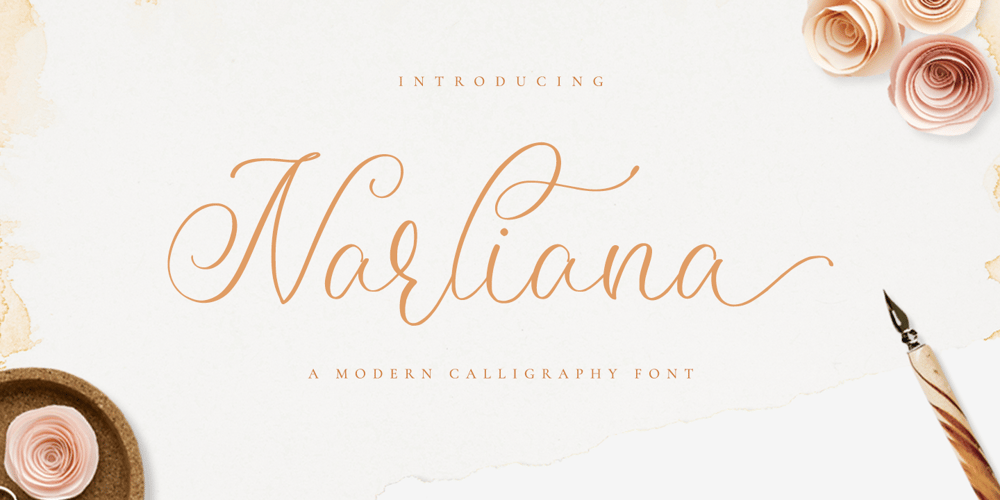
Narliana
Narliana font
Narliana Font Family was designed by Novia Himatunnisa and published by Nissa Nana. Narliana contains 1 styles and family package options. Narliana is a thin lettered and graceful script font. Fall for its ravishing style and use it to create gorgeous designs!